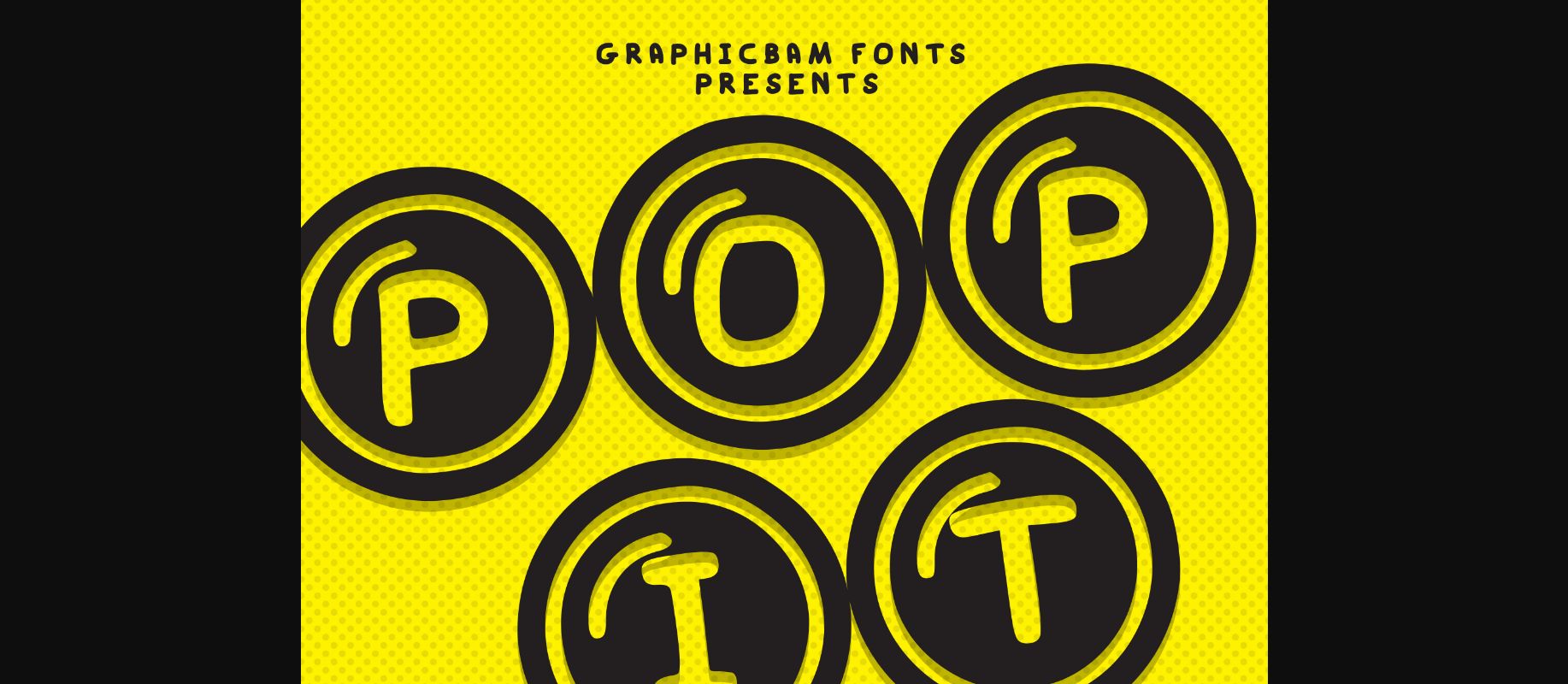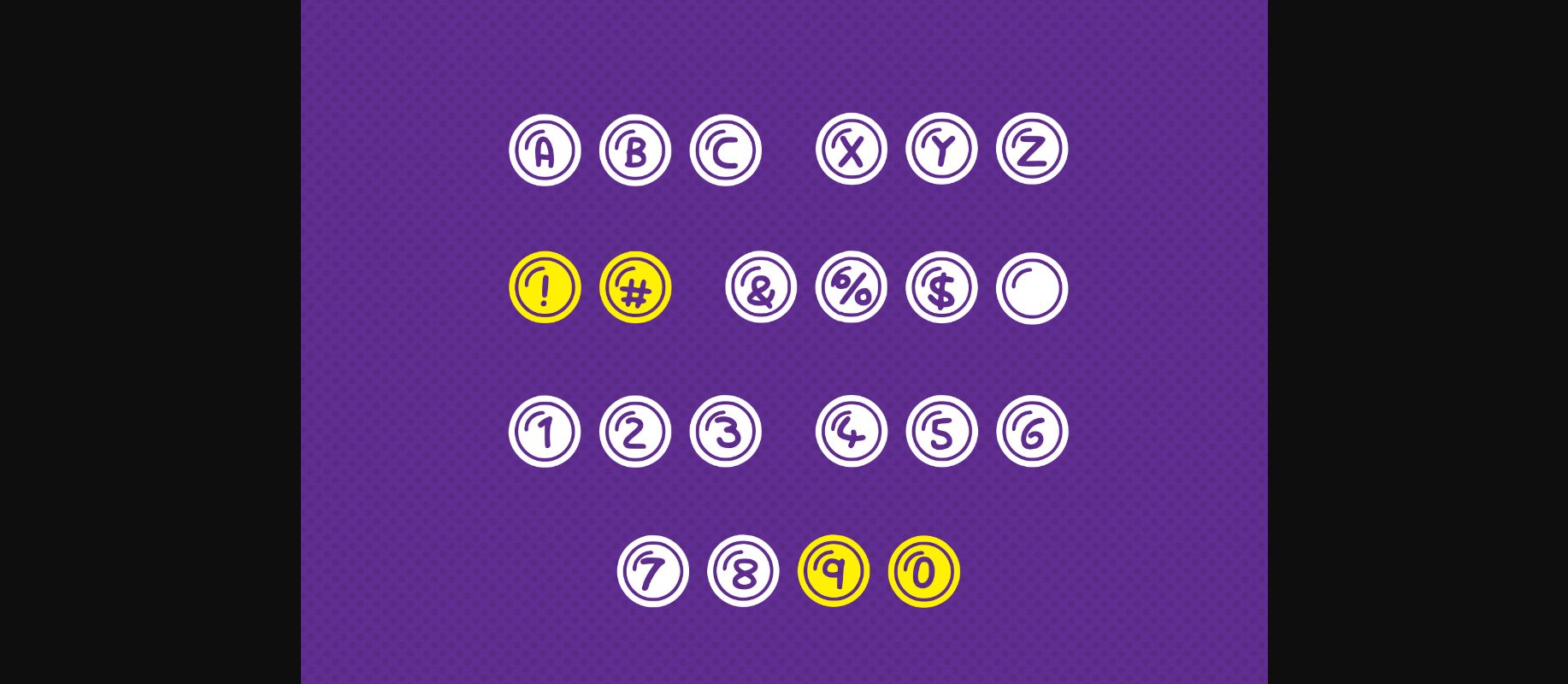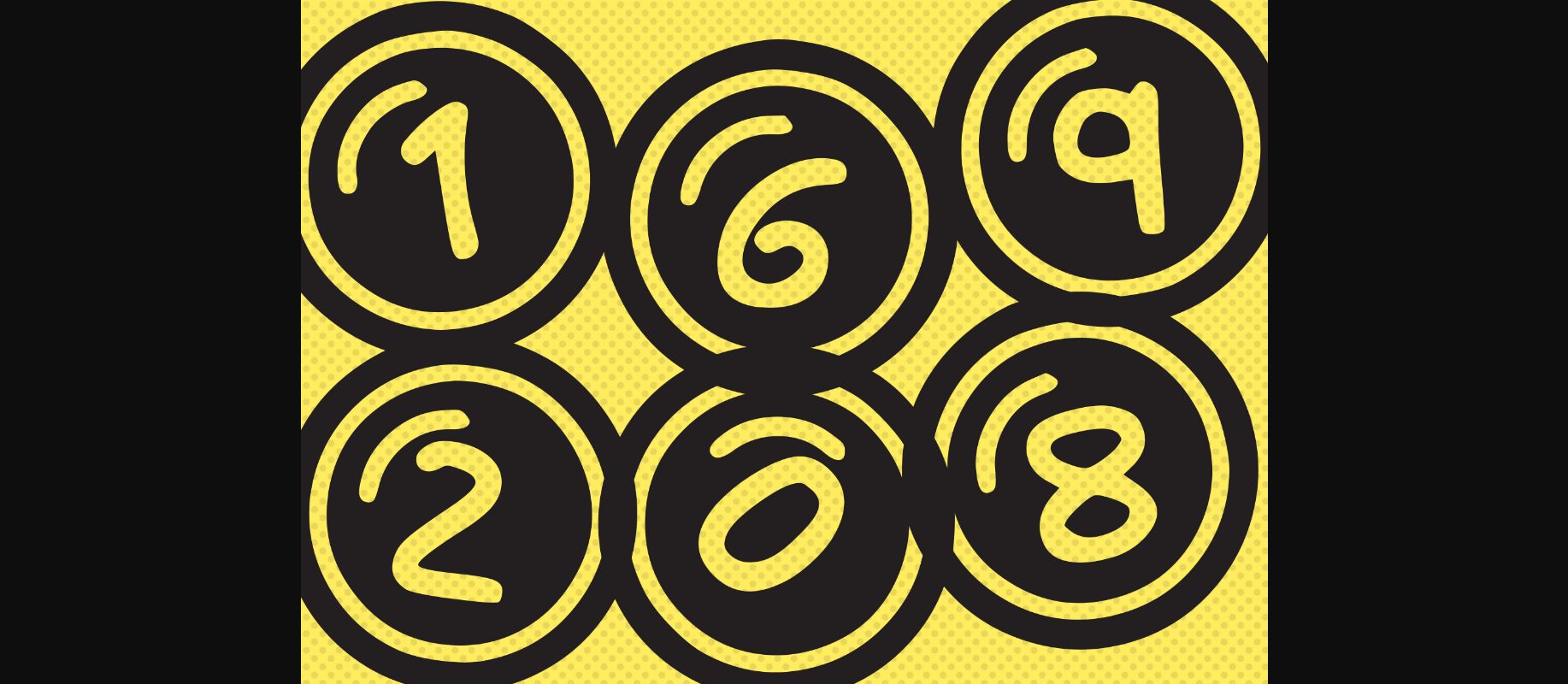
HomeDecorative FontsPop It Font Decorative Fonts Pop It Font FacebookXPinterestWhatsApp 1 of 5 ... Pop It Font Poster 2... Pop It Font Poster 3... Pop It Font Poster 4... Pop It Font Poster 5... About Pop It Font Pop It is a special decorative font. Simple and easy to use, this font will be very beautiful if you mix it with your various craft designs. DOWNLOAD NOW People also explored February Homeworks Font Livy Callista Font Xabilon Font Wonder Angel Font Dynamic Font Fruitty Font Amorillan Orgendam Font Hello Ratysa Font 457 0 TagsPop ItPop It Font Previous articlePlay Xmas Tree FontNext articleHalloween Party Font LEAVE A REPLY Cancel reply Comment: Please enter your comment! Name:* Please enter your name here Email:* You have entered an incorrect email address! Please enter your email address here Website: Save my name, email, and website in this browser for the next time I comment. Personal Use Free Historise Personal Use Free Read more about this font The Bocah Personal Use Free Read more about this font Senza Bella Personal Use Free Read more about this font Genres Personal Use Free Read more about this font BLOG Elegant Wedding Invitation Fonts – Handwritten & Script Fonts Elegant Wedding Invitation Fonts Your wedding day is one of the most important moments of your life, and every detail matters—including your invitation design. Our... Fonts That Capture the Spirit of New York City How to Cut Any Font on Cricut: Convert a Font to SVG (Free) 5 Fonts That Will Dominate Design Trends in 2026